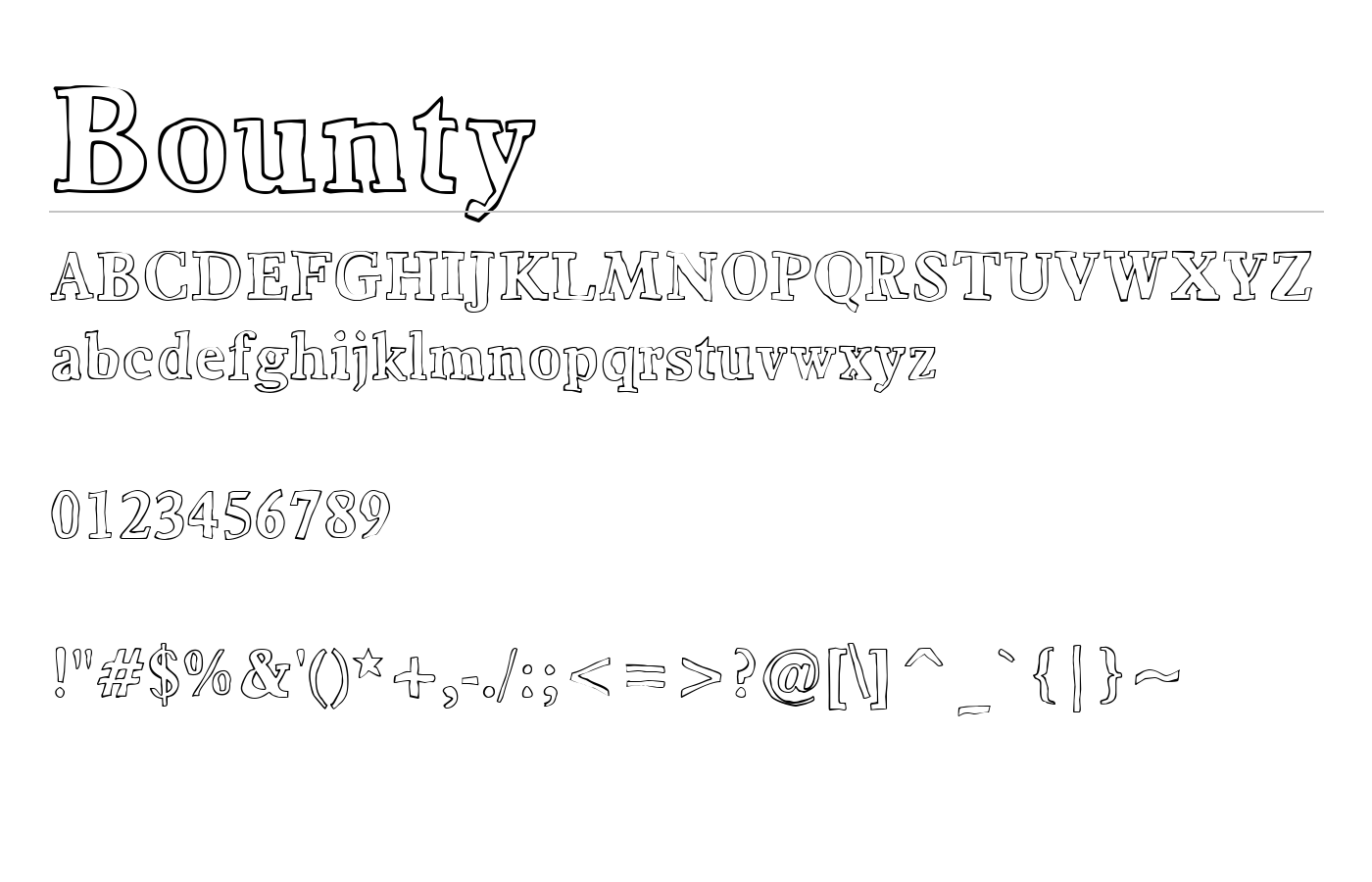
Bounty Font is a playful serif typeface with a hand-drawn, outlined style that gives it a casual and whimsical personality. Its medium weight, slightly condensed proportions, and quirky letter shapes make it perfect for creative and informal designs, such as posters, packaging, and branding that benefit from a fun yet readable look. This font works well where a sense of uniqueness and charm is desired without sacrificing clarity.
Bounty Font
About Bounty Font